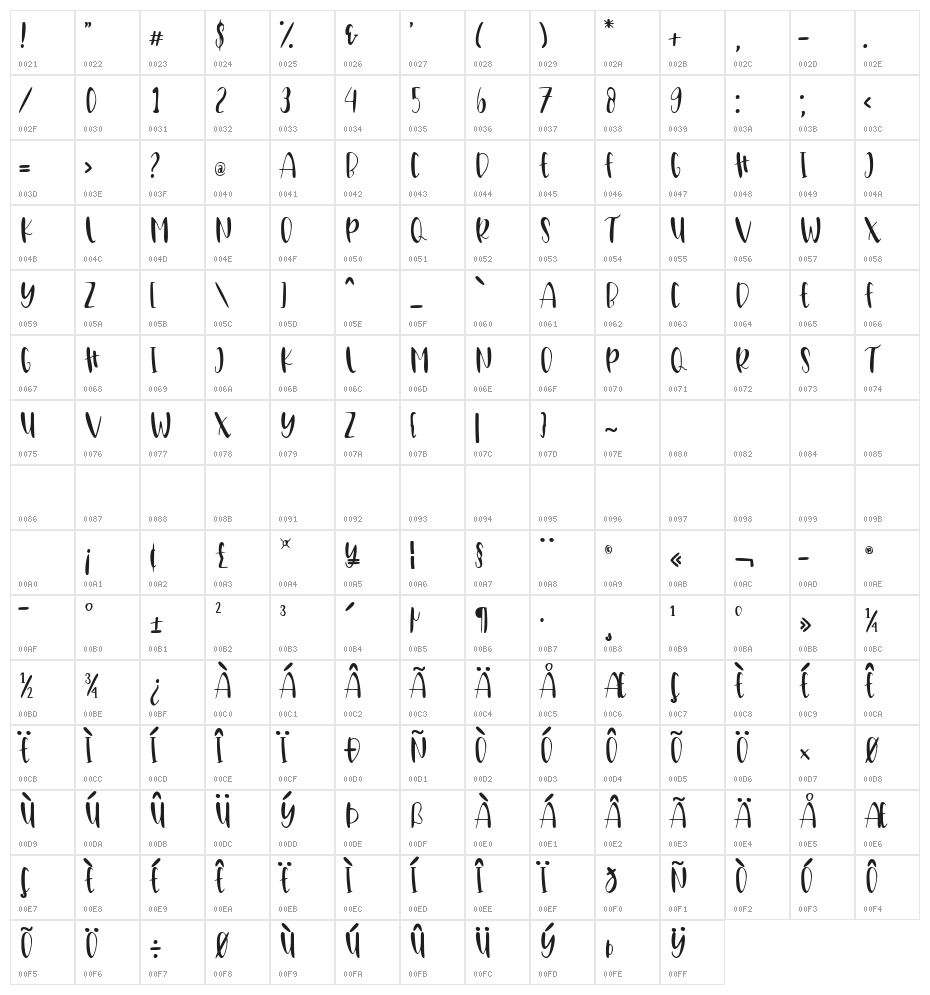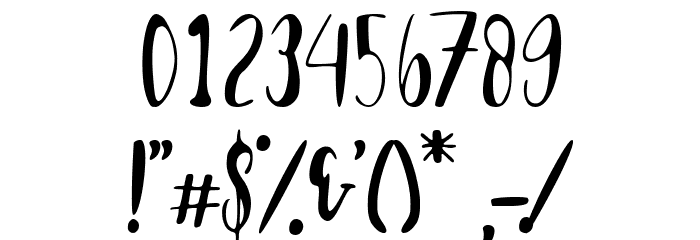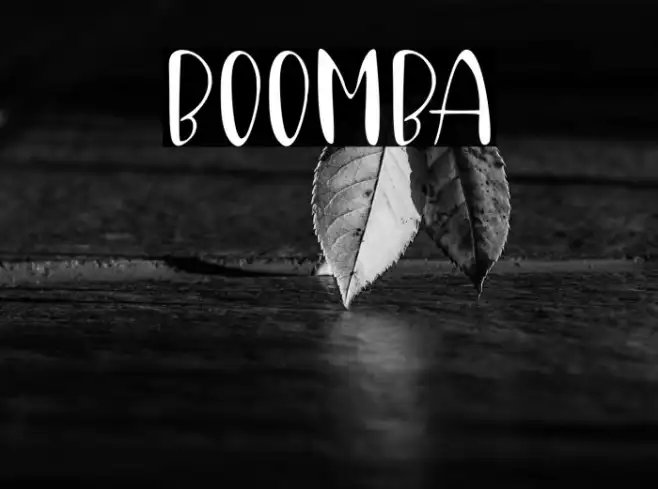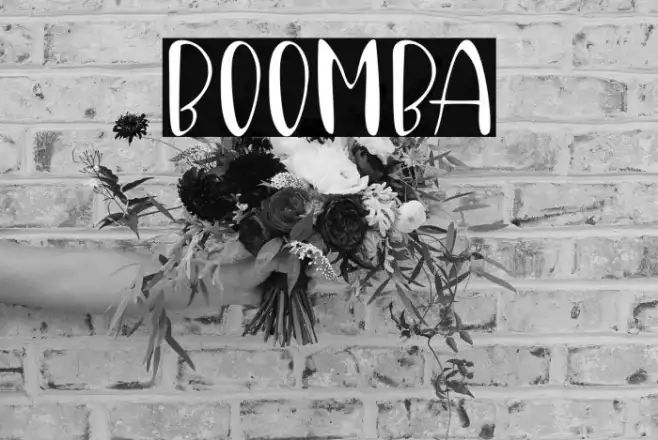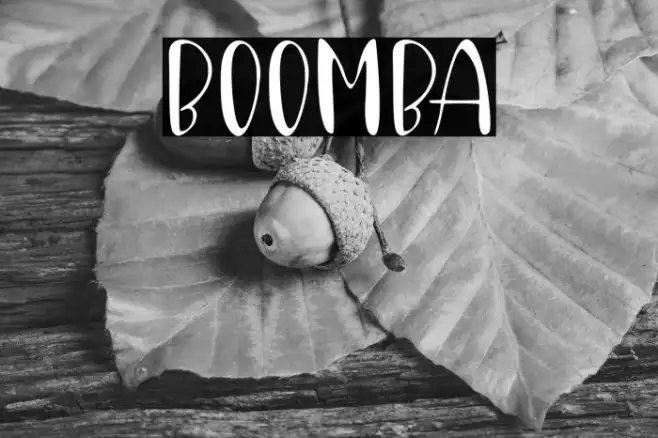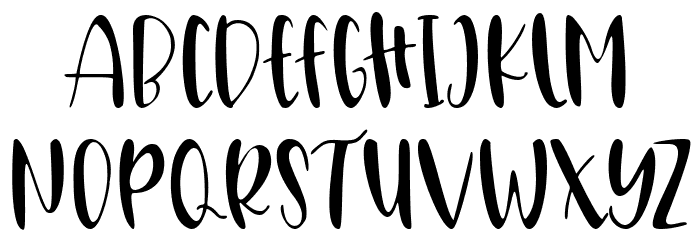
Boomba Font
Boomba Description
This font features a playful and energetic script style with a hand-drawn appearance. The letters are bold and slightly slanted, giving a sense of movement and liveliness. The uppercase and lowercase characters maintain a consistent flow, with rounded edges and varying stroke widths that add a dynamic feel. The numerals and special characters complement the alphabet with similar stylistic features, ensuring a cohesive look across all text. This font's unique charm makes it perfect for projects that require a personal touch.
| Proposed Projects | Ideal for greeting cards, invitations, branding, and social media graphics. |